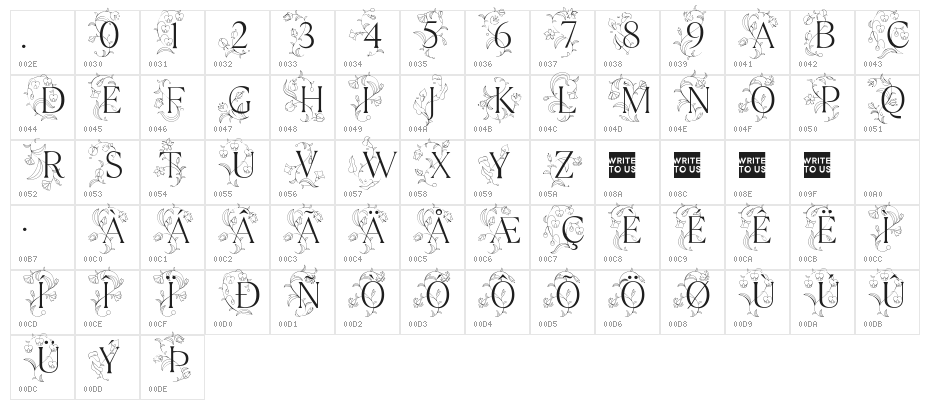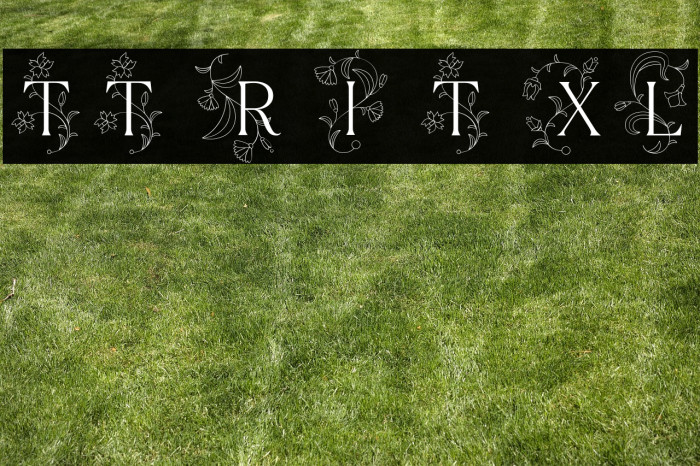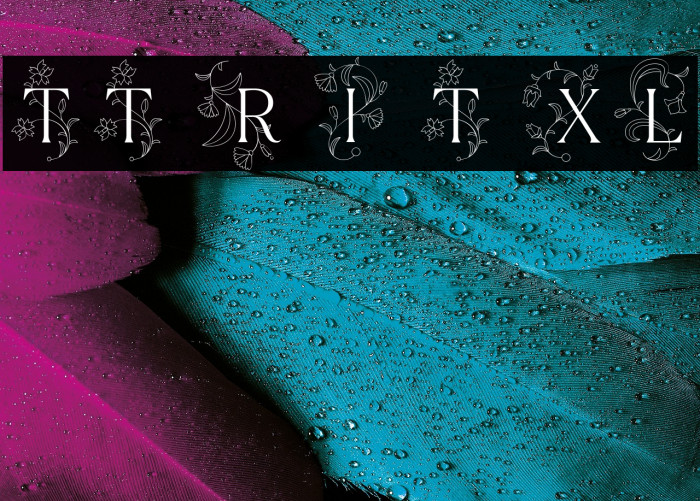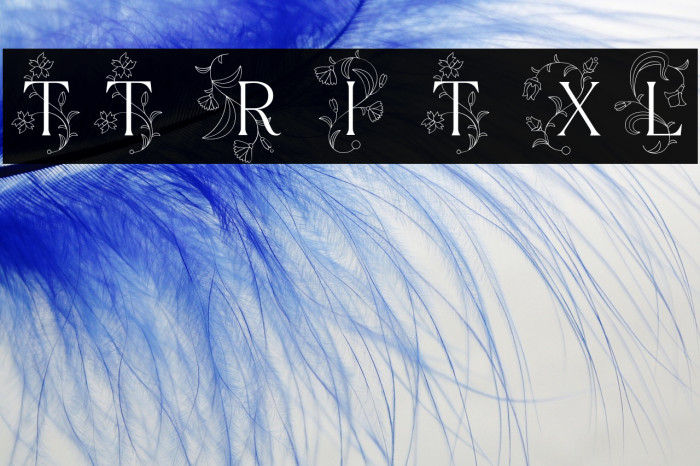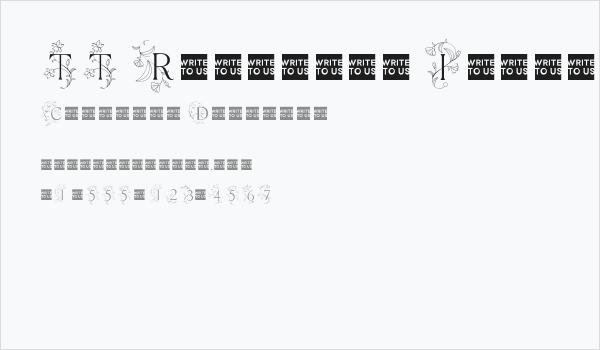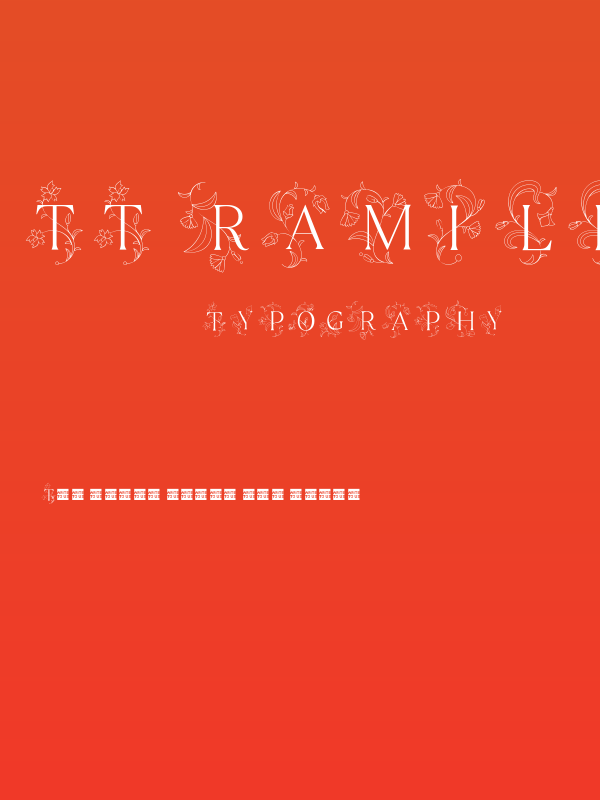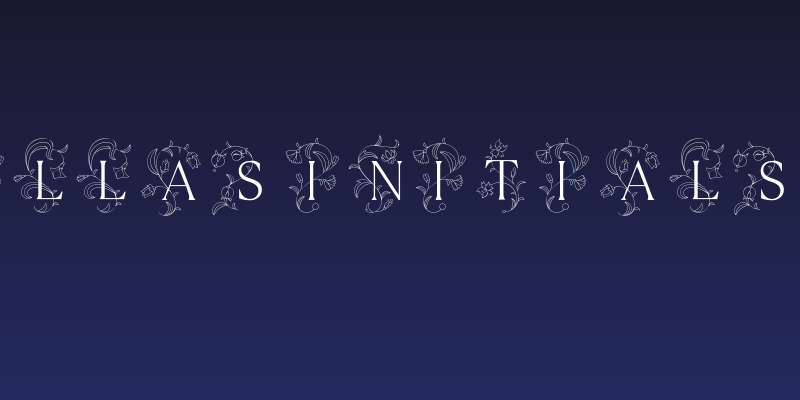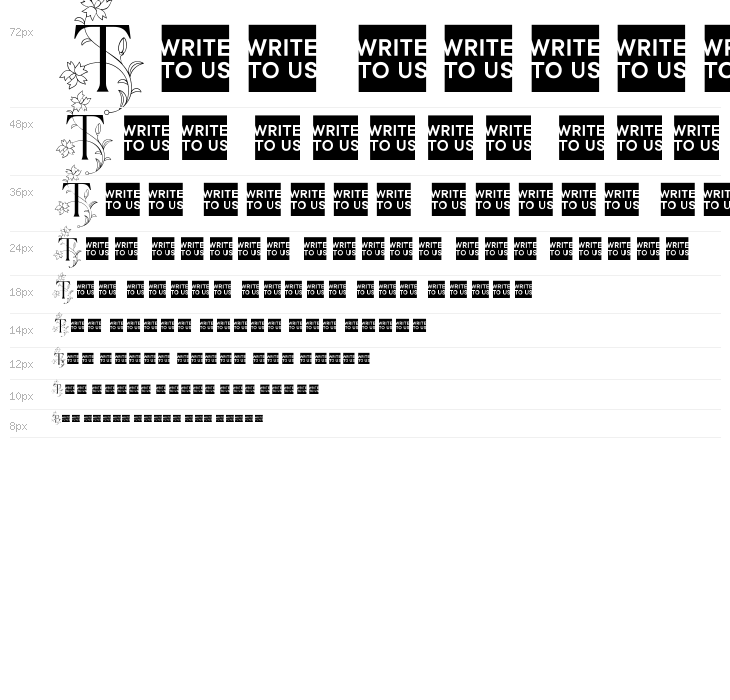
TT Ramillas Initials Trl XLt Font
TT Ramillas Initials Trl XLt Description
This font features an elegant and decorative style, characterized by intricate floral embellishments that surround each letter and number. The uppercase and lowercase letters are crafted with a classic serif design, providing a timeless and sophisticated appearance. The floral motifs add a touch of nature-inspired beauty, making each character stand out with artistic flair. The numbers are similarly adorned, ensuring a cohesive and harmonious look across the entire set. This font is ideal for projects that require a touch of elegance and artistic expression.
| Use Case | Logos, Invitations, Decorative headings |
| Proposed Projects | Ideal for wedding invitations, luxury branding, artistic posters, and decorative book covers. |